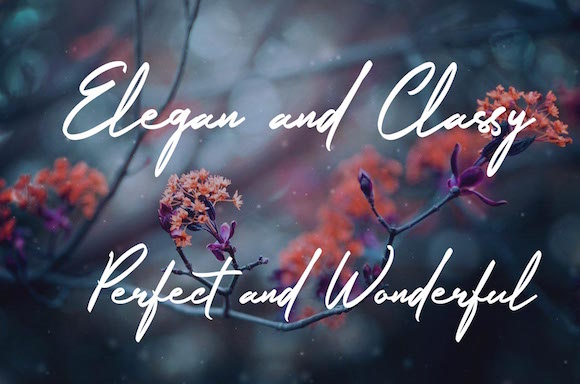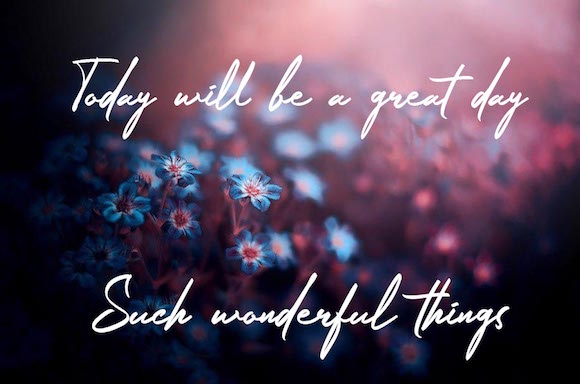
Nerty Font
About Nerty Font
The Nerty is a modern signature script. It’s suitable for logos, posters, taglines, magazines, greeting cards, invitations, or any other design that needs a stylish look.